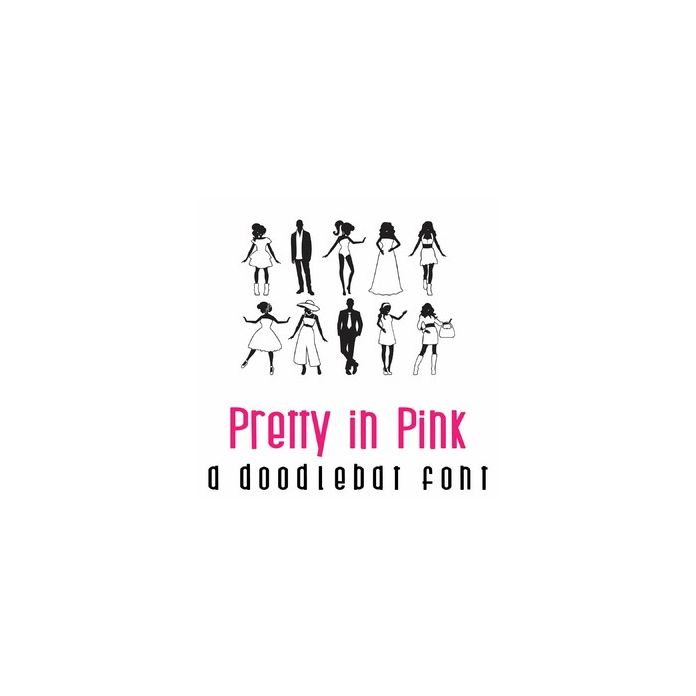
Pretty in Pink Doodlebat Font
This fun doodlebat features 26 simple fashionable dolls. Perfect for parties, cards, decor, crafts, planner stickers, scrapbook pages and more!